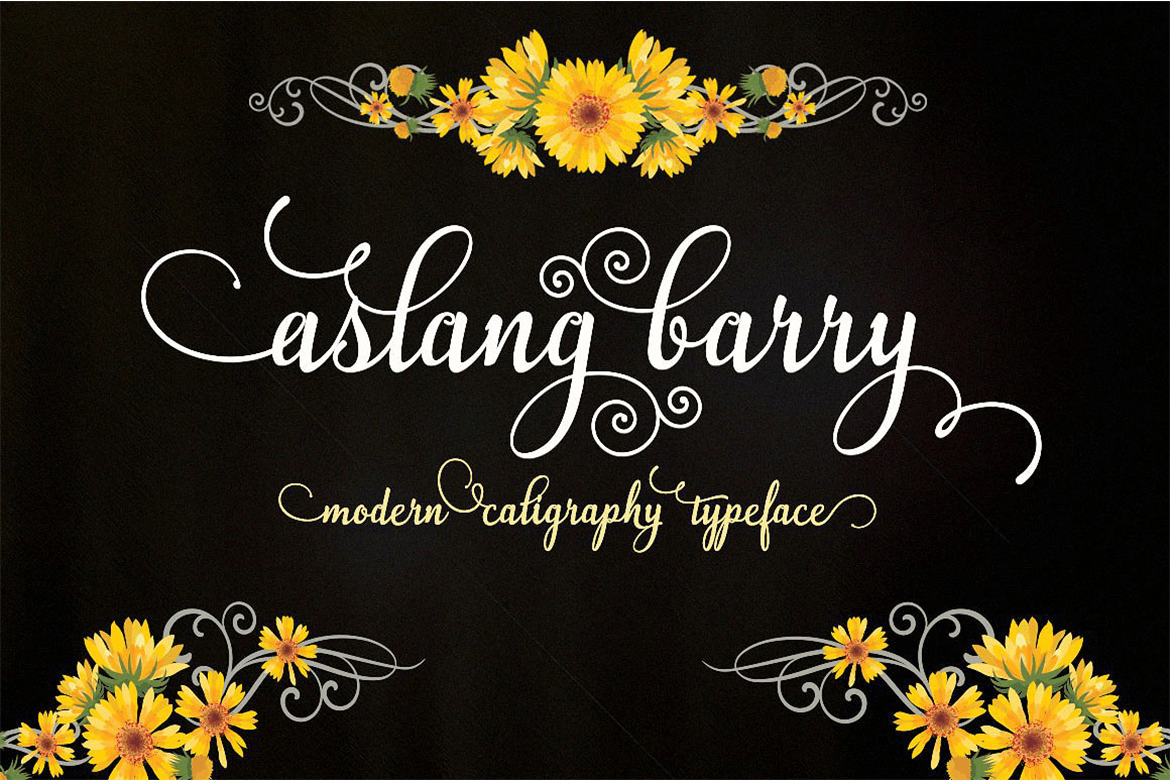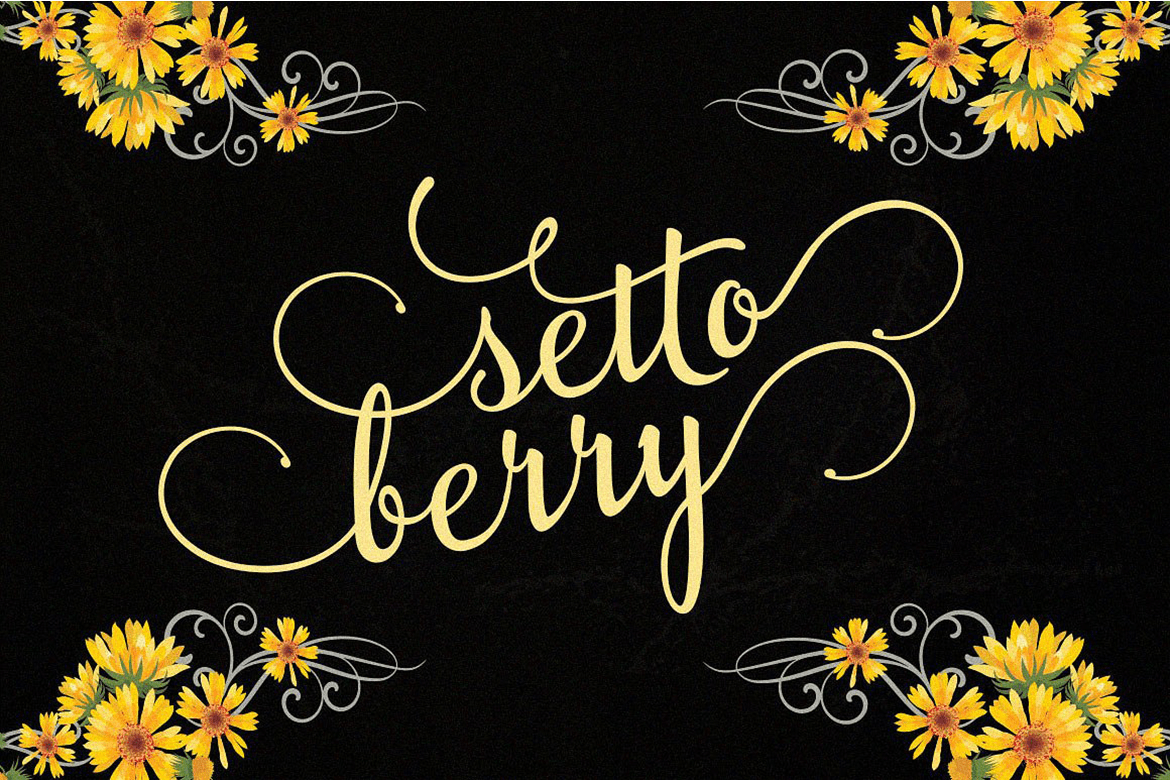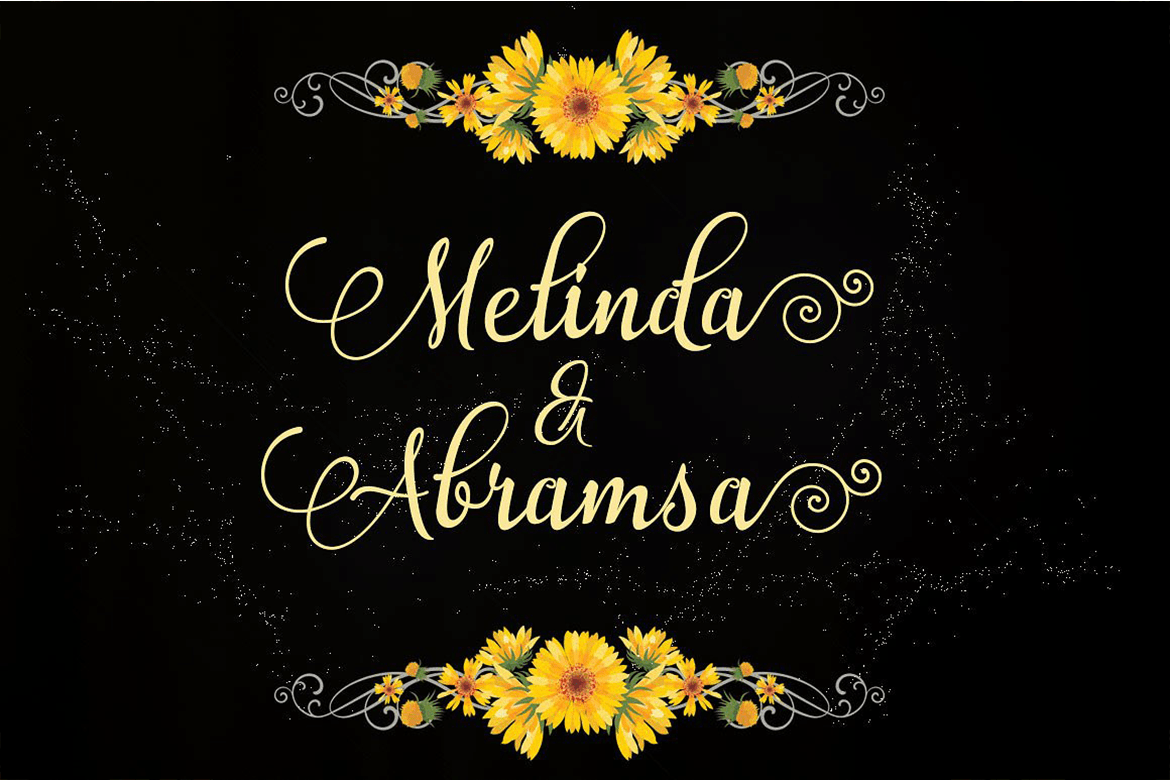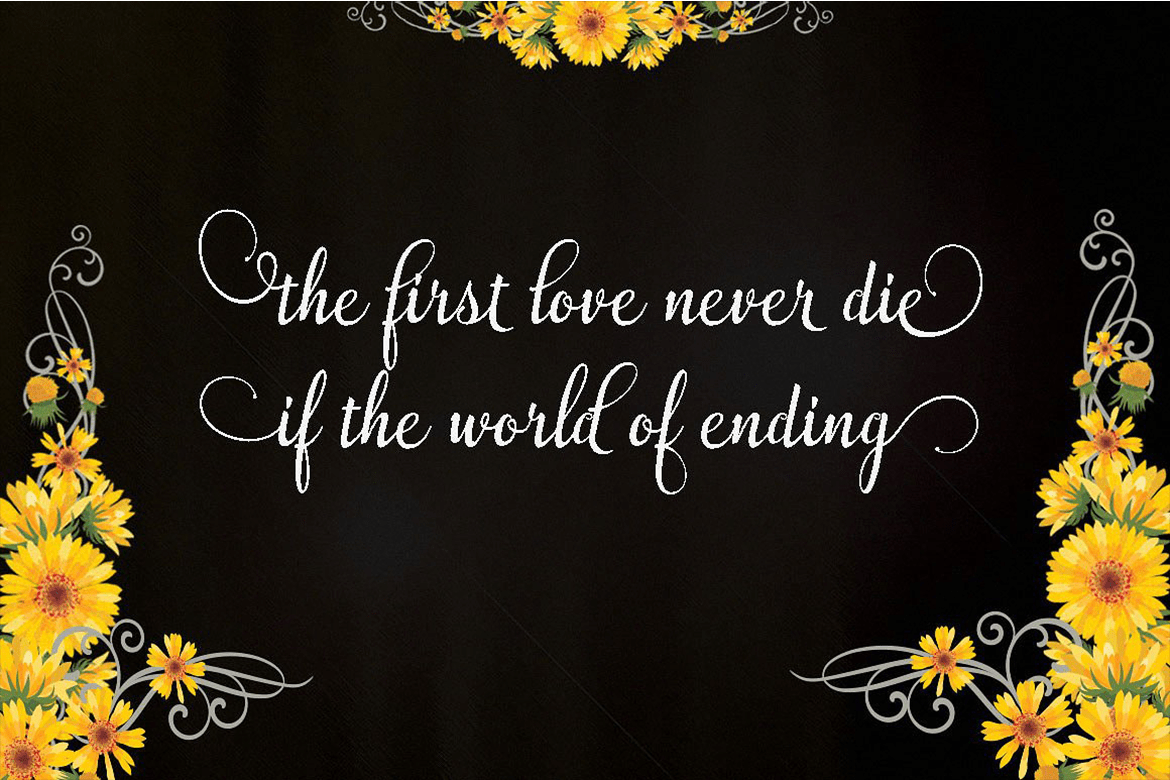
Aslang Barry
Aslang Barry Script is another lovely modern calligraphy typefaces, which is combining the style of classic calligraphy with an modern style. combines from copperplate to contemporary typeface with a dancing baseline, modern and elegant touch. Aslang Barry Script features 525 + glyphs and 300 alternate characters. including initial and terminal letters, alternates, ligatures and multiple language support.
Can be used for various purposes.such as headings, signature, logos, wedding invitation, t-shirt, letterhead, signage, labels, news, posters, badges etc. To enable the OpenType Stylistic alternates, you need a program that supports OpenType features such as Adobe Illustrator CS, Adobe Indesign & CorelDraw X6-X7.